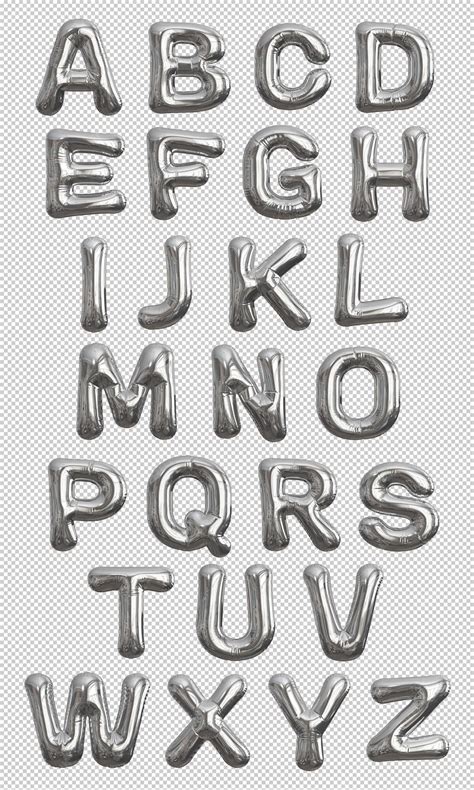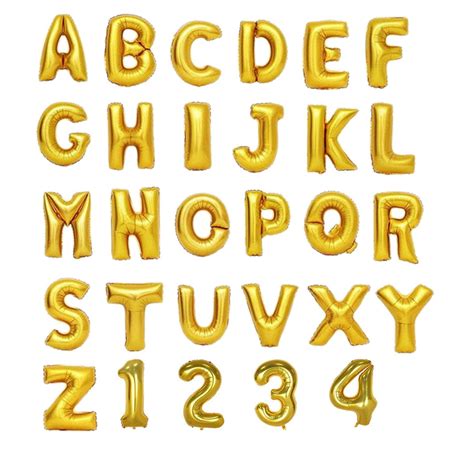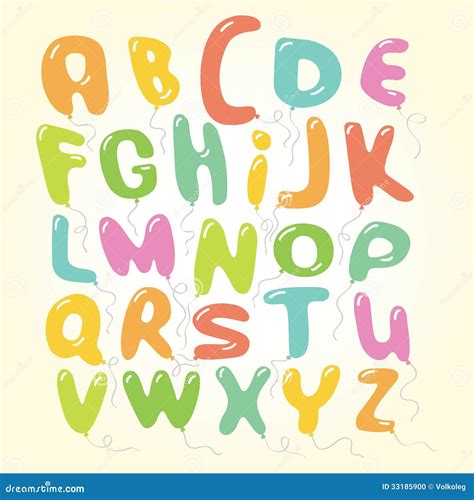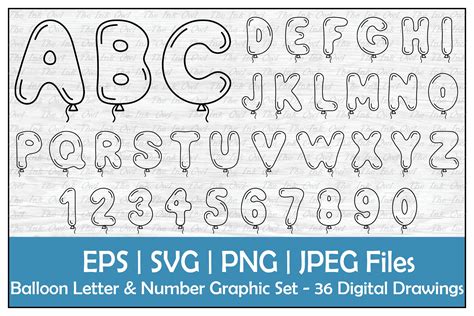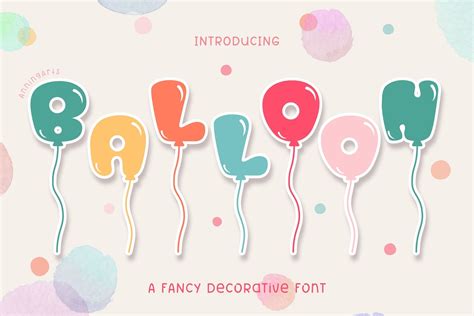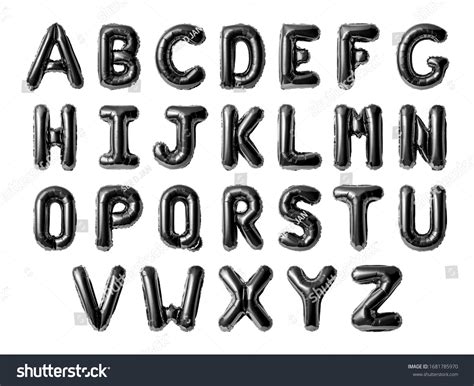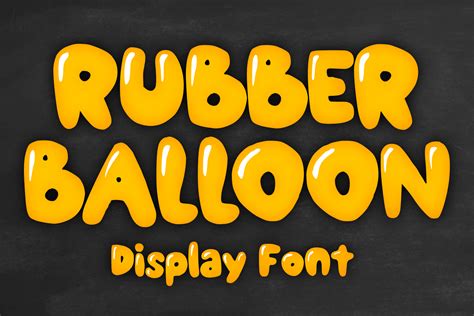
In the world of graphic design and typography, the choice of font can make or break a project. One font style that has gained significant popularity is the Balloon Letters Font. This whimsical and playful font style is often used to add a touch of fun and creativity to various design projects. Whether you're creating invitations, posters, or digital graphics, the Balloon Letters Font can bring a unique and eye-catching element to your work.
Understanding Balloon Letters Font
The Balloon Letters Font is characterized by its rounded, inflated shapes that resemble balloons. This font style is perfect for projects that require a lighthearted and playful tone. It is often used in children's books, birthday invitations, and other festive occasions. The font's design is inspired by the classic balloon shapes, making it instantly recognizable and appealing to a wide audience.
History and Evolution of Balloon Letters Font
The origins of the Balloon Letters Font can be traced back to the early days of typography when designers began experimenting with different shapes and styles. Over the years, this font style has evolved to include various variations, each with its unique twist on the classic balloon shape. Today, the Balloon Letters Font is available in numerous digital formats, making it accessible to designers worldwide.
Applications of Balloon Letters Font
The Balloon Letters Font is incredibly versatile and can be used in a wide range of applications. Here are some of the most common uses:
- Invitations and Greeting Cards: The playful nature of the Balloon Letters Font makes it perfect for invitations and greeting cards. It adds a festive touch to any occasion, whether it's a birthday, wedding, or holiday celebration.
- Children's Books and Educational Materials: The font's whimsical design is ideal for children's books and educational materials. It captures the attention of young readers and makes learning more enjoyable.
- Posters and Flyers: For events that require a fun and engaging atmosphere, the Balloon Letters Font is an excellent choice. It can be used to create eye-catching posters and flyers that stand out from the crowd.
- Digital Graphics and Social Media: In the digital age, the Balloon Letters Font is also popular for creating social media graphics, banners, and other digital content. Its unique design helps to grab attention and convey a playful message.
Designing with Balloon Letters Font
When designing with the Balloon Letters Font, there are several key considerations to keep in mind. These include color choices, pairing with other fonts, and ensuring readability. Here are some tips to help you get started:
Color Choices
Choosing the right colors is crucial when working with the Balloon Letters Font. Bright and vibrant colors are often the best choice, as they complement the playful nature of the font. Consider using colors that are associated with the theme of your project. For example, pastel colors for a baby shower or bold primary colors for a children's party.
Pairing with Other Fonts
While the Balloon Letters Font can stand alone, pairing it with other fonts can enhance its impact. When choosing complementary fonts, consider the overall tone of your project. For a more playful look, pair it with another whimsical font. For a more balanced design, pair it with a simple, sans-serif font.
Ensuring Readability
Although the Balloon Letters Font is visually appealing, it's important to ensure that it remains readable. Use it sparingly for headings and short phrases, and avoid using it for large blocks of text. This will help maintain clarity and readability in your design.
Creating Balloon Letters Font in Adobe Illustrator
If you're looking to create your own Balloon Letters Font, Adobe Illustrator is a powerful tool that can help you achieve this. Here are the steps to create a custom balloon letter font:
- Open Adobe Illustrator and create a new document.
- Use the Ellipse Tool to draw a circle for the balloon shape.
- Adjust the size and position of the circle to create the desired balloon shape.
- Use the Type Tool to add text inside the balloon shape.
- Customize the text by adjusting the font, size, and color to match your design.
- Repeat the process for each letter or word you want to create.
- Save your design as a vector file for future use.
💡 Note: When creating custom balloon letters, ensure that the shapes are consistent and proportional to maintain a cohesive design.
Popular Balloon Letters Fonts
There are several popular Balloon Letters Fonts available that you can use in your projects. Here are some of the most well-known options:
| Font Name | Description |
|---|---|
| Baloo Bhaijaan | A playful and rounded font with a hand-drawn feel, perfect for children's projects. |
| Pacifico | A script font with a casual and friendly appearance, ideal for invitations and greeting cards. |